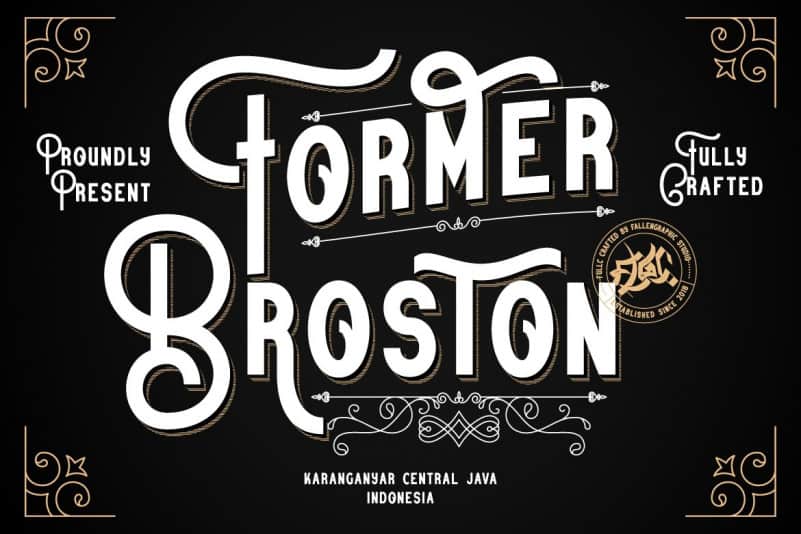
Former Broston Font
Former Broston Display Font is a sans serif based typeface that have curly and elegant looks with a bunch of alternates that will make your presentation or logo even more stunning and stand out! font is perfect for branding, headings, signatures, logos, blog, wedding invitations, t-shirts, letterhead, merchandise, signage, lable, news, posters, badges etc.